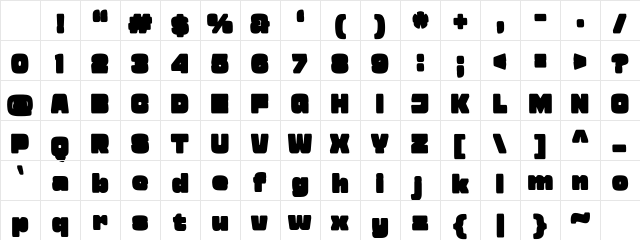
Complete Joyful Chase Extrude Demo Regular glyph index. Displaying only characters natively supported by Joyful Chase Extrude Demo Regular font.
Joyful Chase Extrude Demo is a composed and adaptable typeface that performs quietly and consistently across a wide range of design contexts.